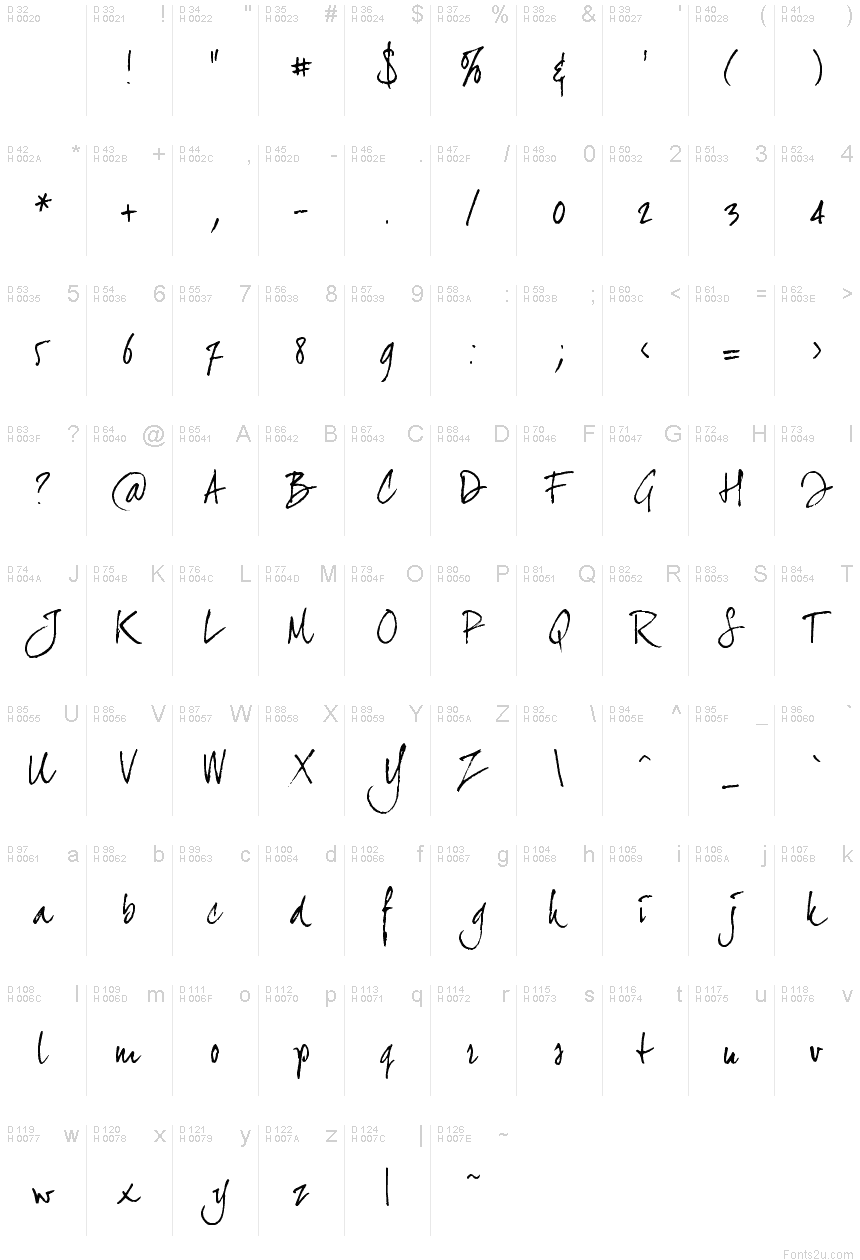
joeHand 2
joeHand 2 font by Joebob graphics is a free handwritten font that looks like ink dragged quickly across rough paper. The tall, loping letters, scratchy edges, and uneven pressure give it a raw, spontaneous energy—more like a scribbled note than neat calligraphy. It feels personal, a little messy in a good way, and instantly human.
Using joeHand 2 adds a bold, unfiltered voice to posters, album art, zines, edgy branding, quote graphics, and expressive social posts. The loose spacing and varied stroke weight pull the eye, making short phrases and headlines feel urgent and alive. This free font works beautifully when paired with a clean geometric sans set small underneath, letting joeHand 2 shout while the supporting text quietly explains.